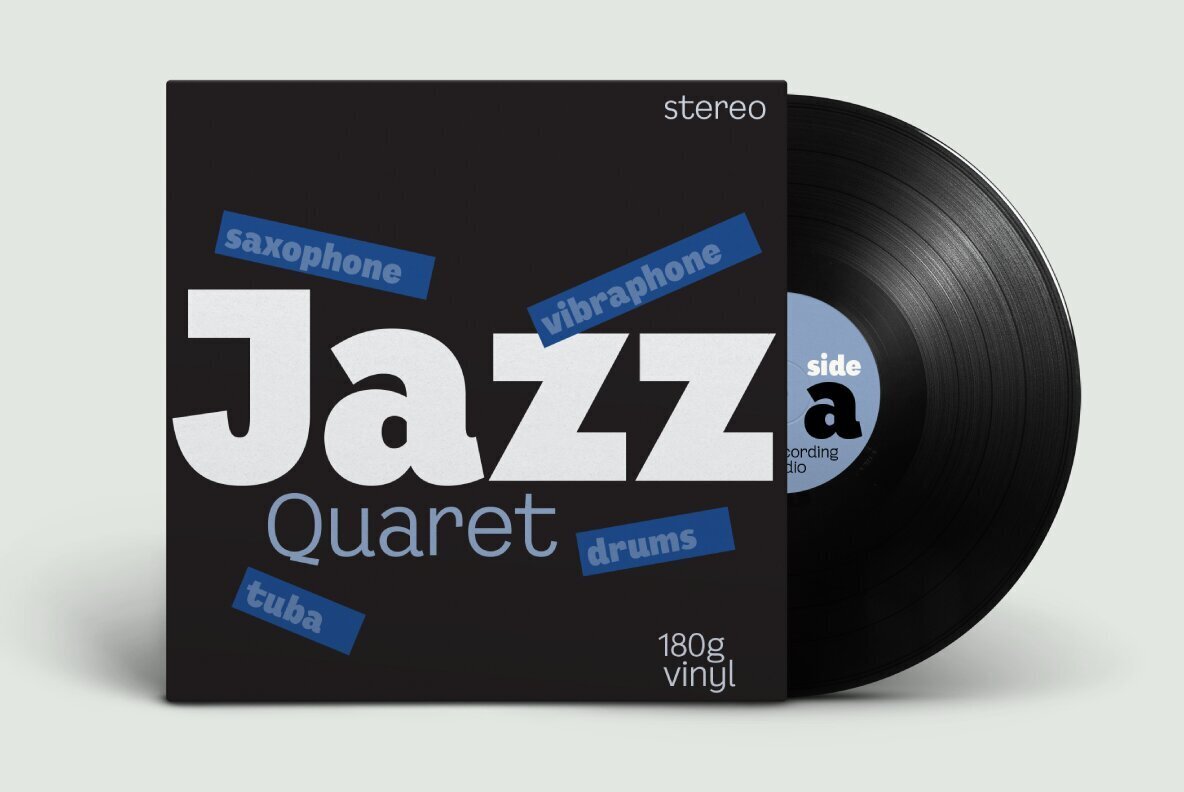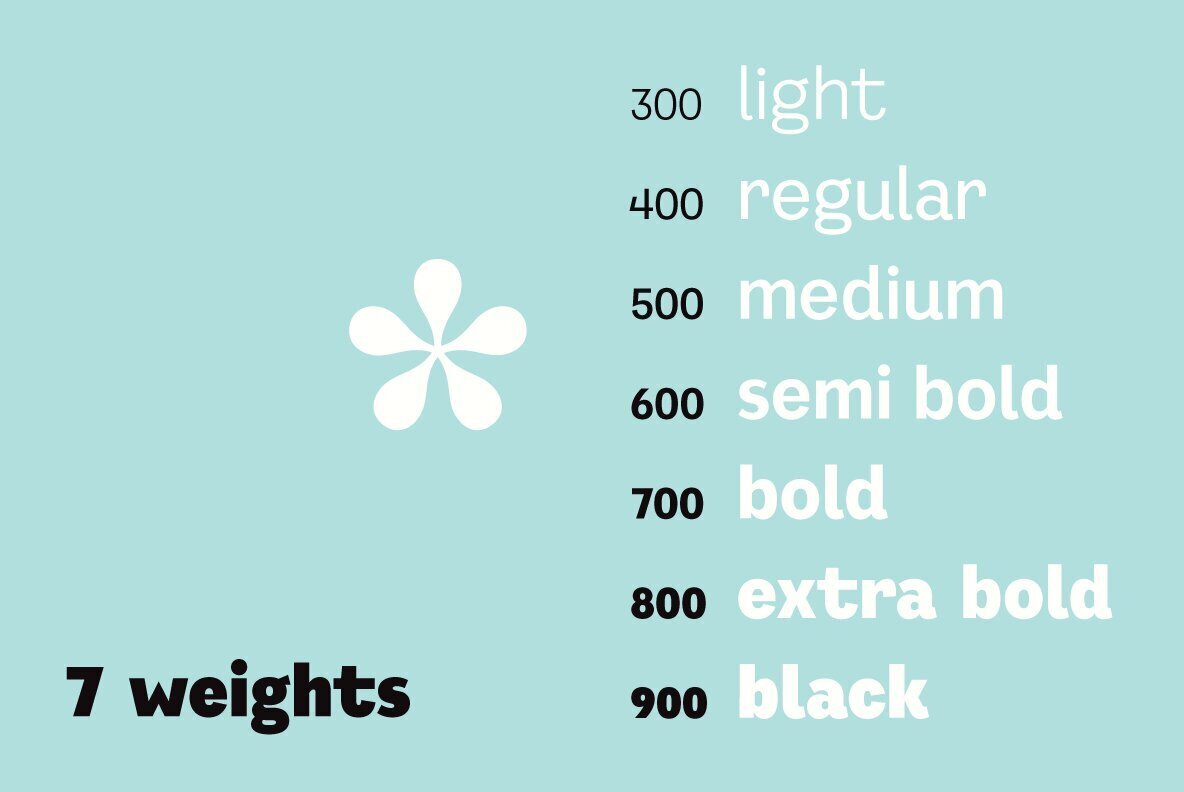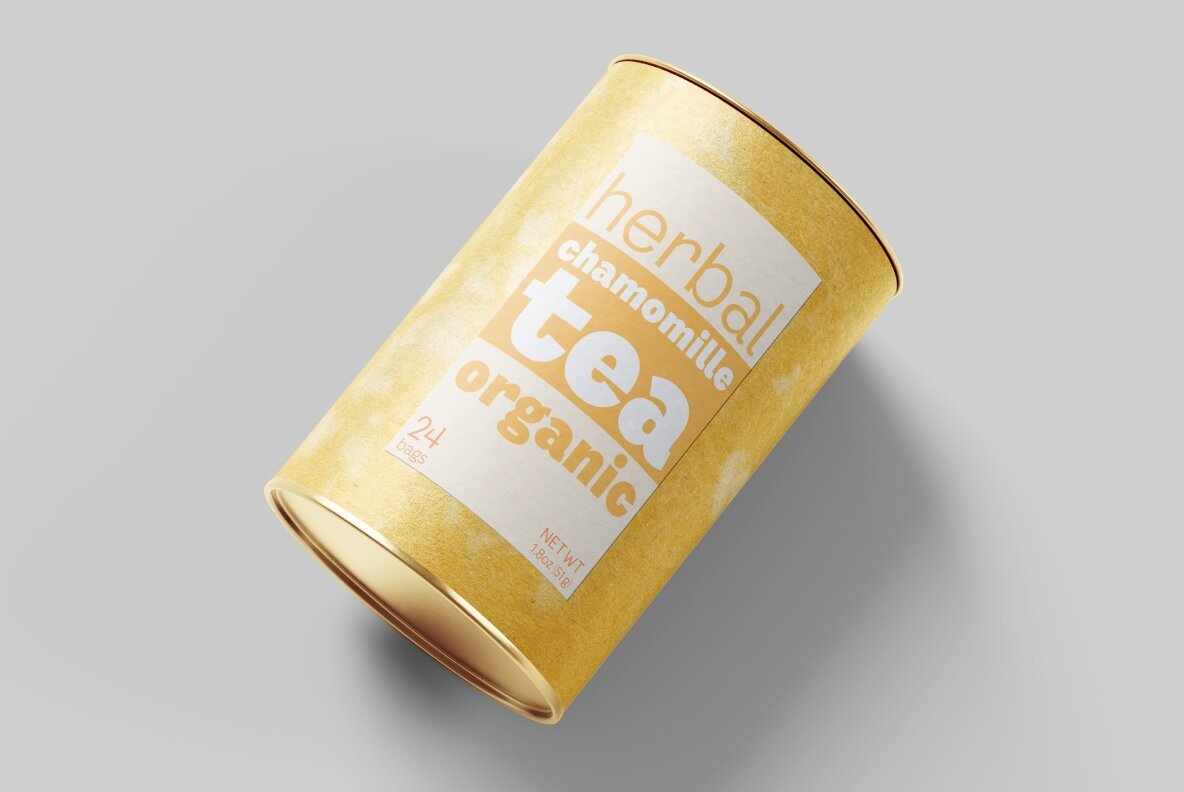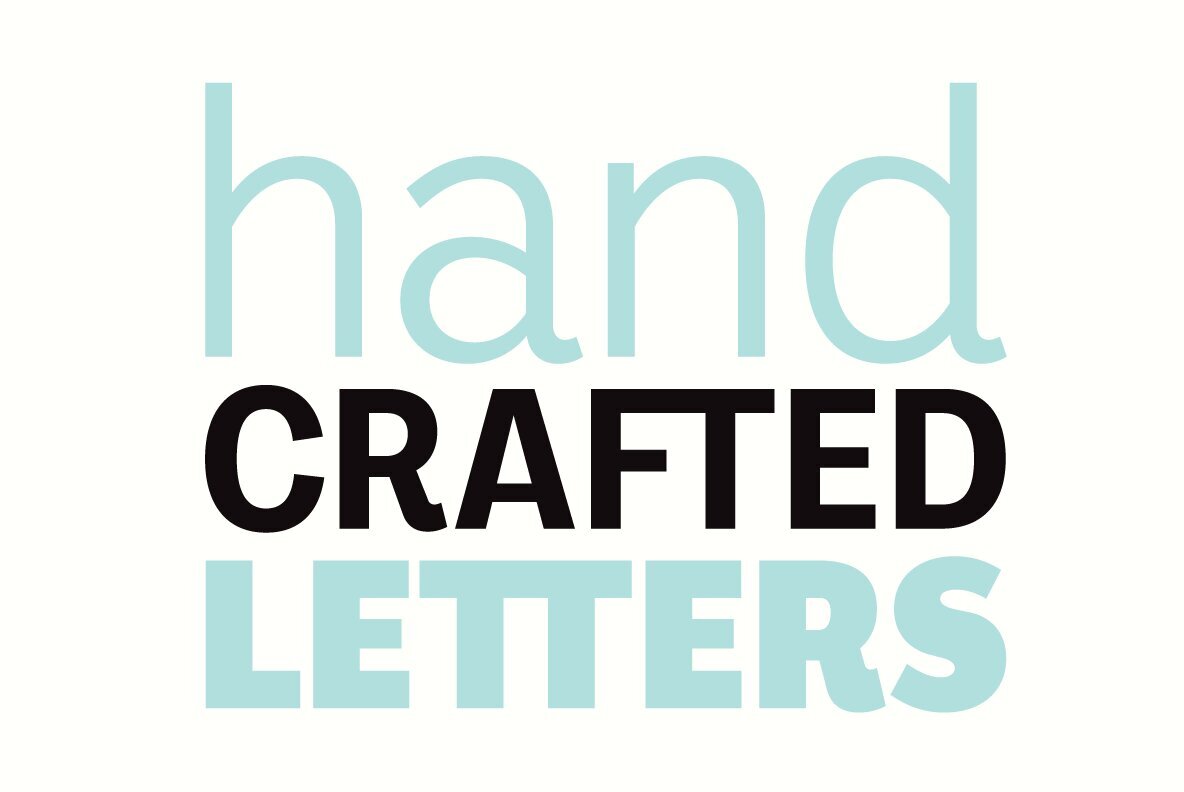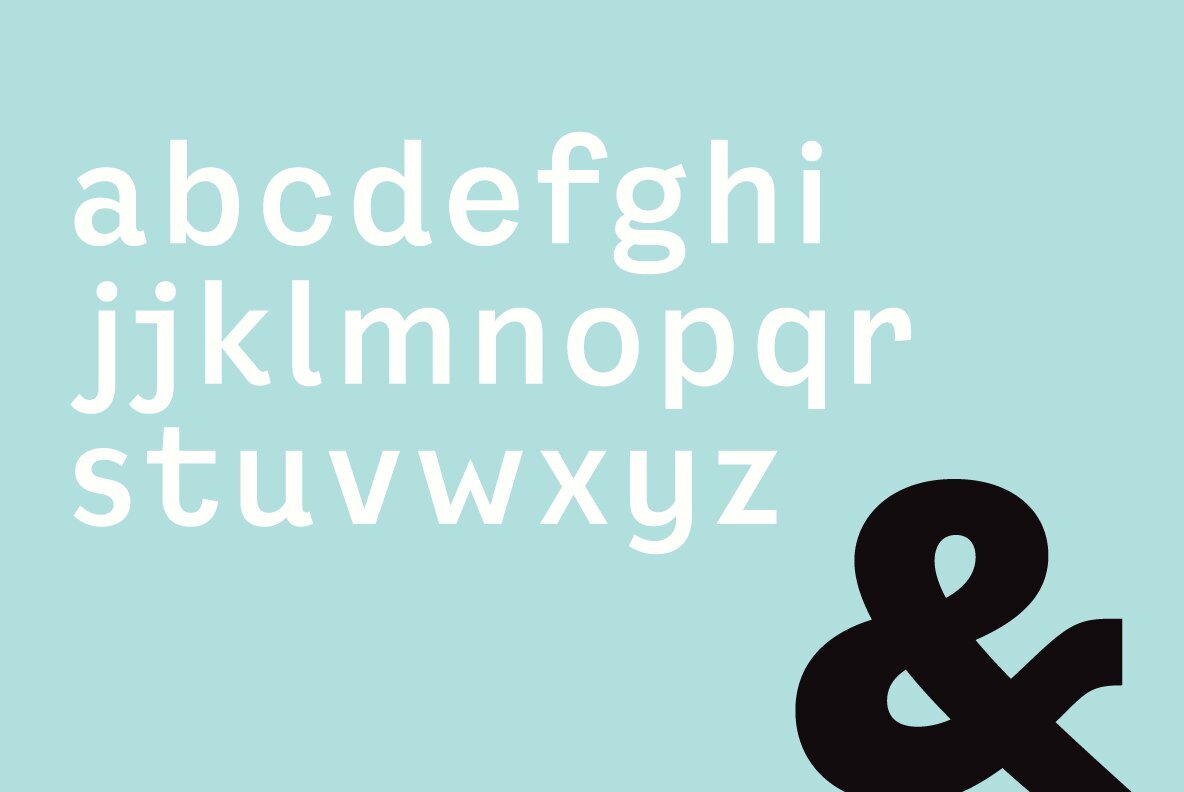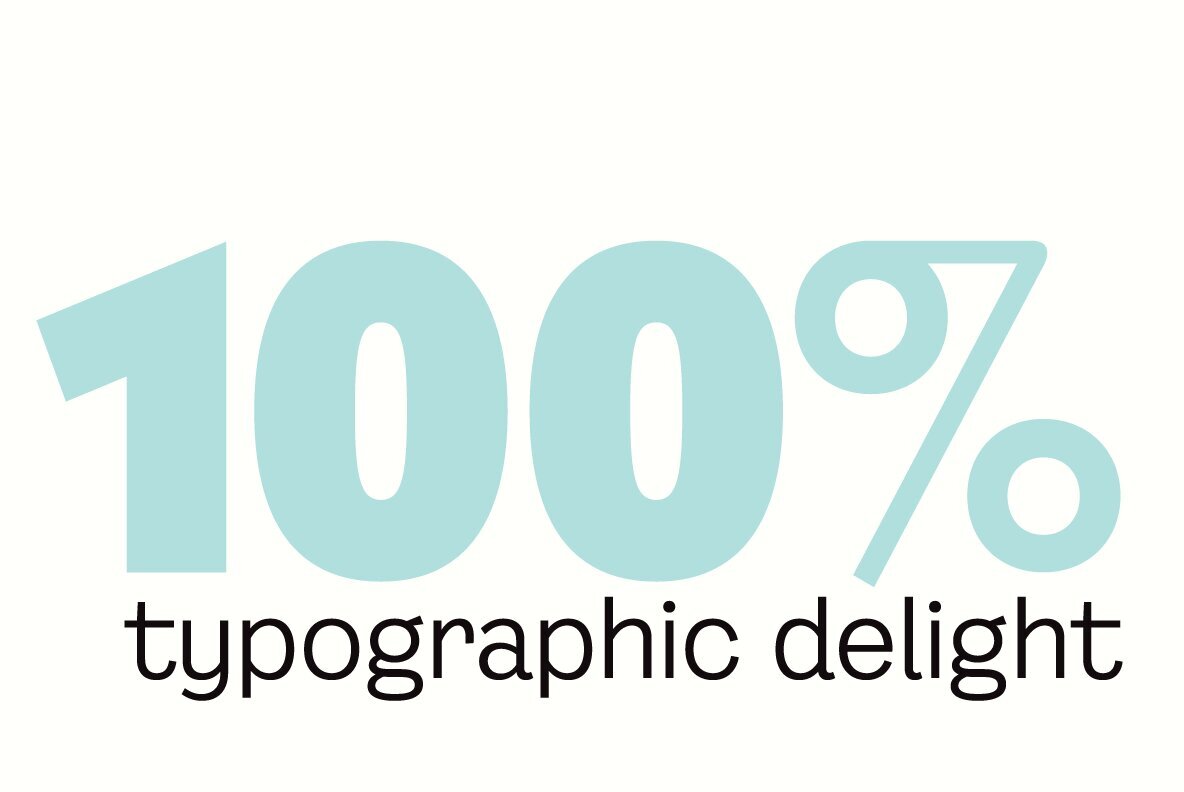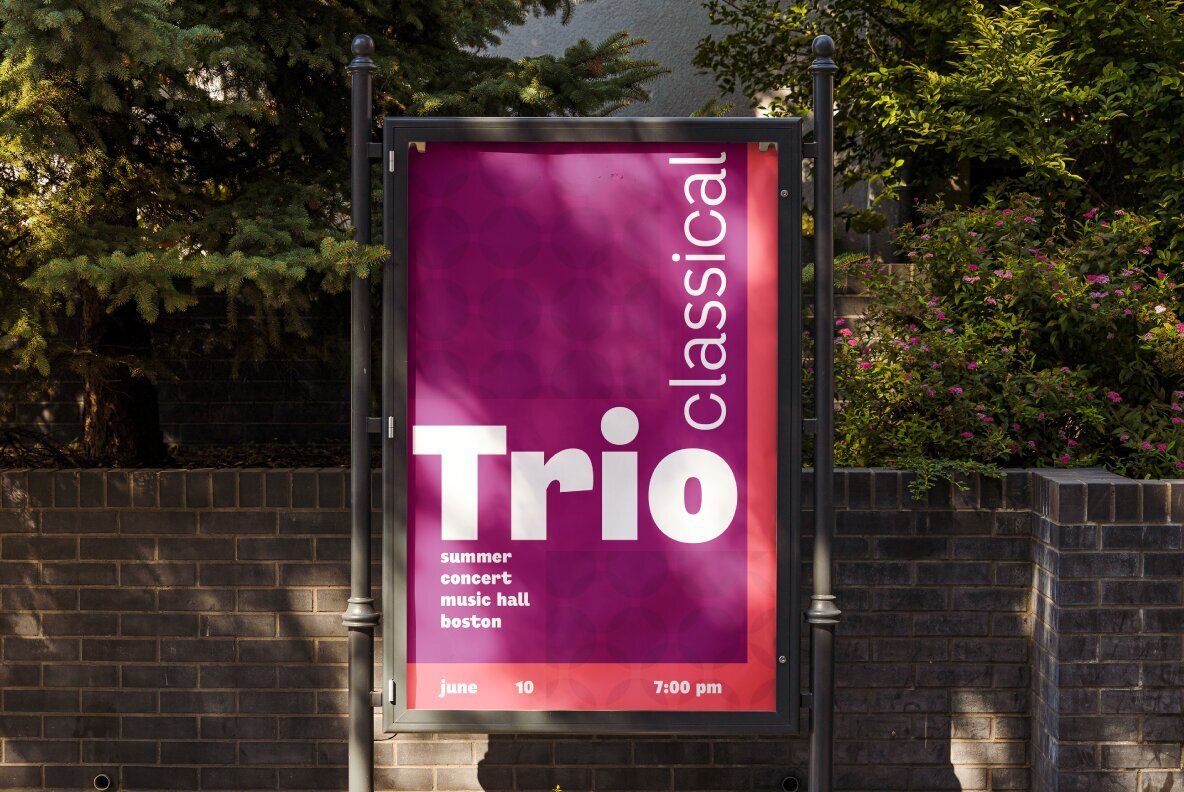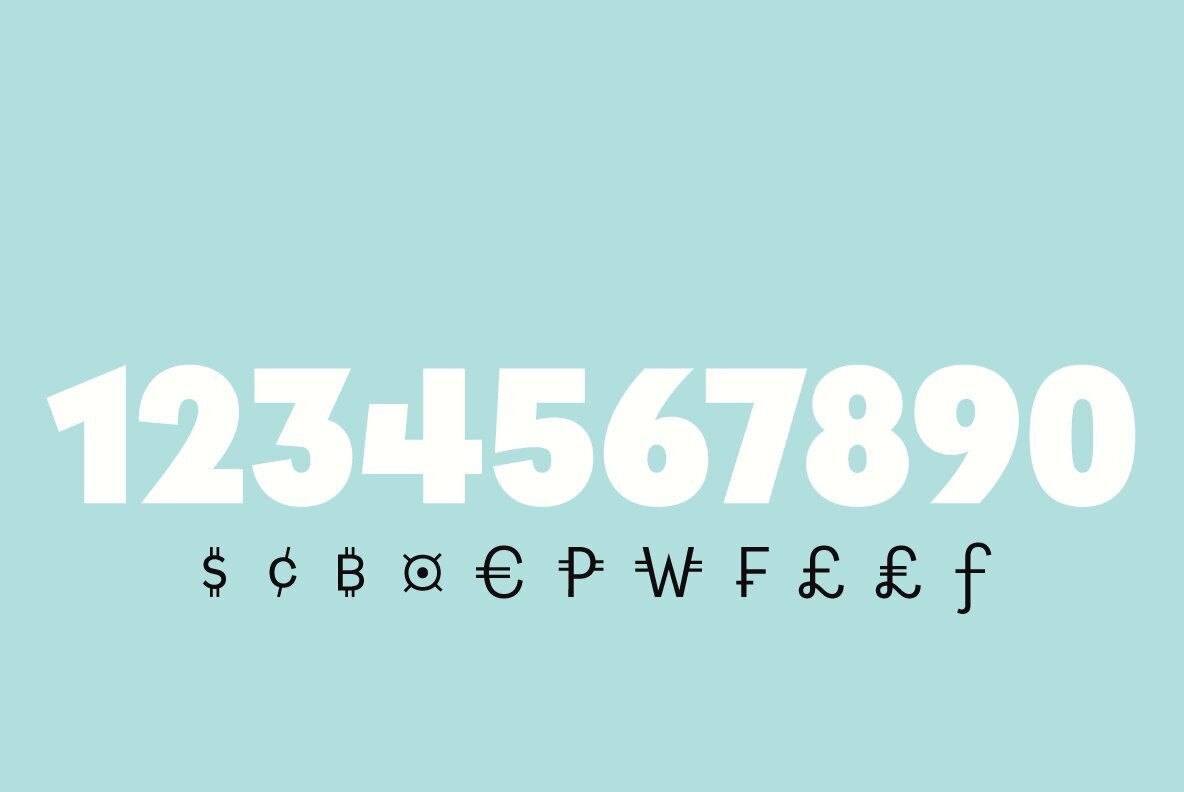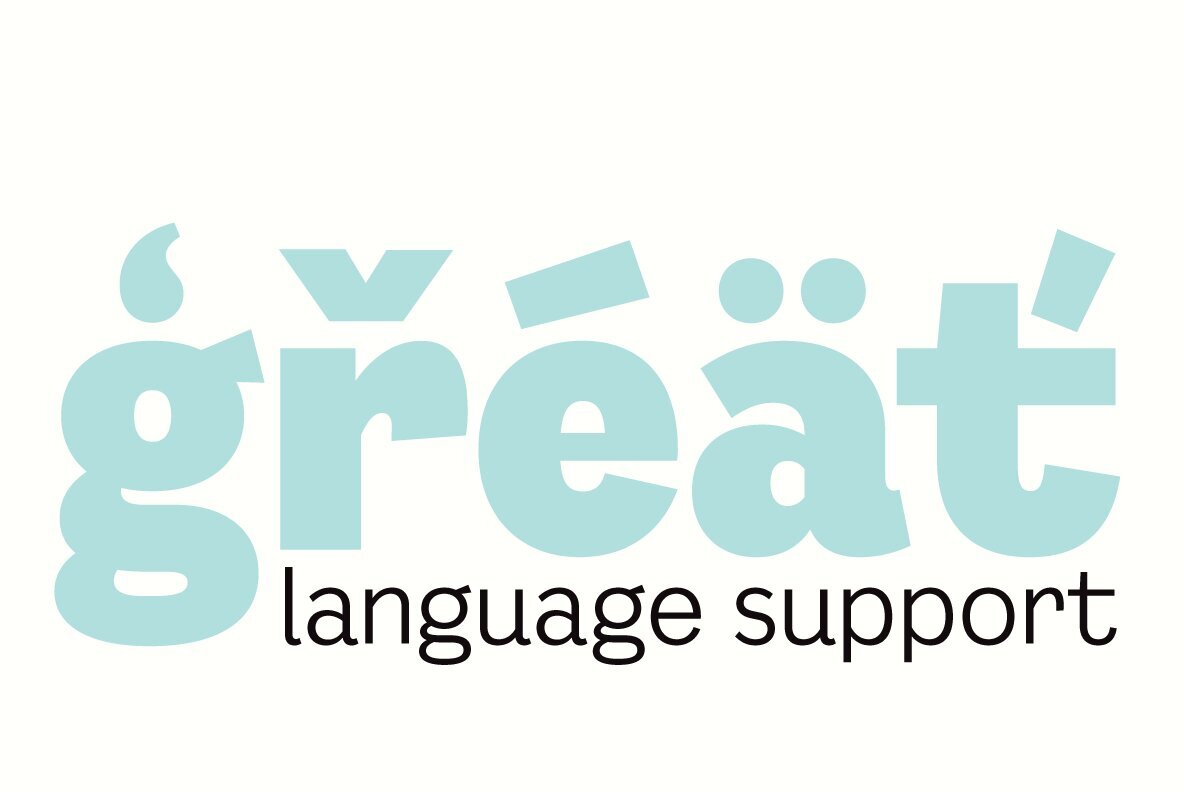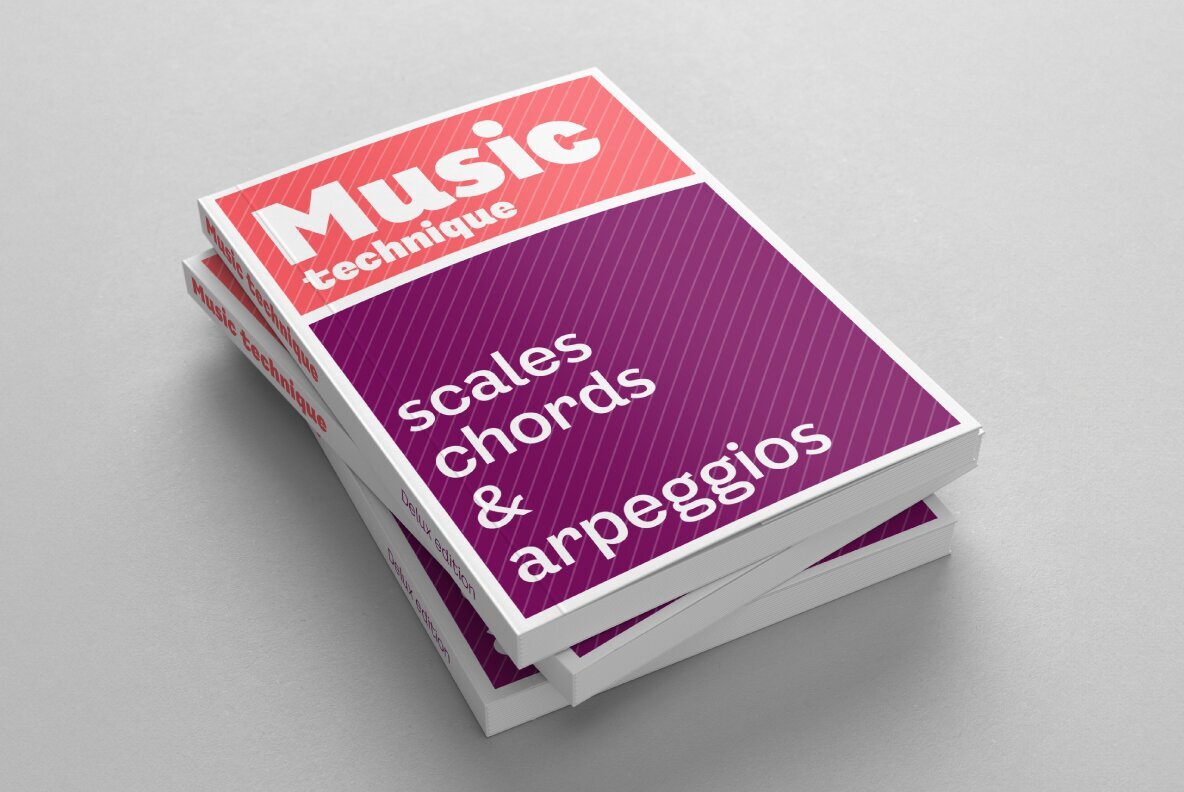
Mezzogiorno Font
Mezzogiorno is a casual and friendly sans serif typeface. It is playful and approachable, yet restrained. The easy-going nature of Mezzogiorno adds just the right amount of warmth without overpowering text. It is suitable for any graphic design need. Sectors like the arts, education, food, and travel will find this typeface adds a human tone. Mezzogiorno unites qualities of humanist sans serifs and expressive display fonts. The black and extra bold weights are rich in playful curves. The lighter weights delight with gentle movements, asking the reader to slow down and savor each word. Some distinctive letterform aspects include a reverse contrast S, seriffed endings on a few letters, angled terminal strokes, high contrast parentheses and brackets, and a double-story lowercase g. It comes in 7 weights from light to black and with matching obliques. OpenType features include standard and discretionary ligatures (fj, ft, tt, TT, TJ and FL), alternate glyphs for j J, two ampersands, three at signs, arrows, and a Bitcoin symbol. The drawings of this typeface were made while listening to the jazz music of Vince Guaraldi. In Italian, Mezzogiorno means midday, noon, & Southern Italy. Mezzogiorno is protected by copyright, EULAs, international intellectual property laws, and the Digital Millennium Copyright Act (DMCA).